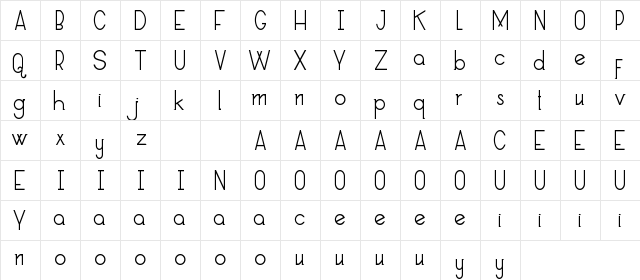
Allorta Demo Regular
| Foundry | Edric Studio |
| Designer | Lisna |
Design Context for Allorta Demo Typeface
Allorta Demo offers clean, dependable letterforms without strong stylistic allegiance, making it a practical choice for designers who need flexibility.